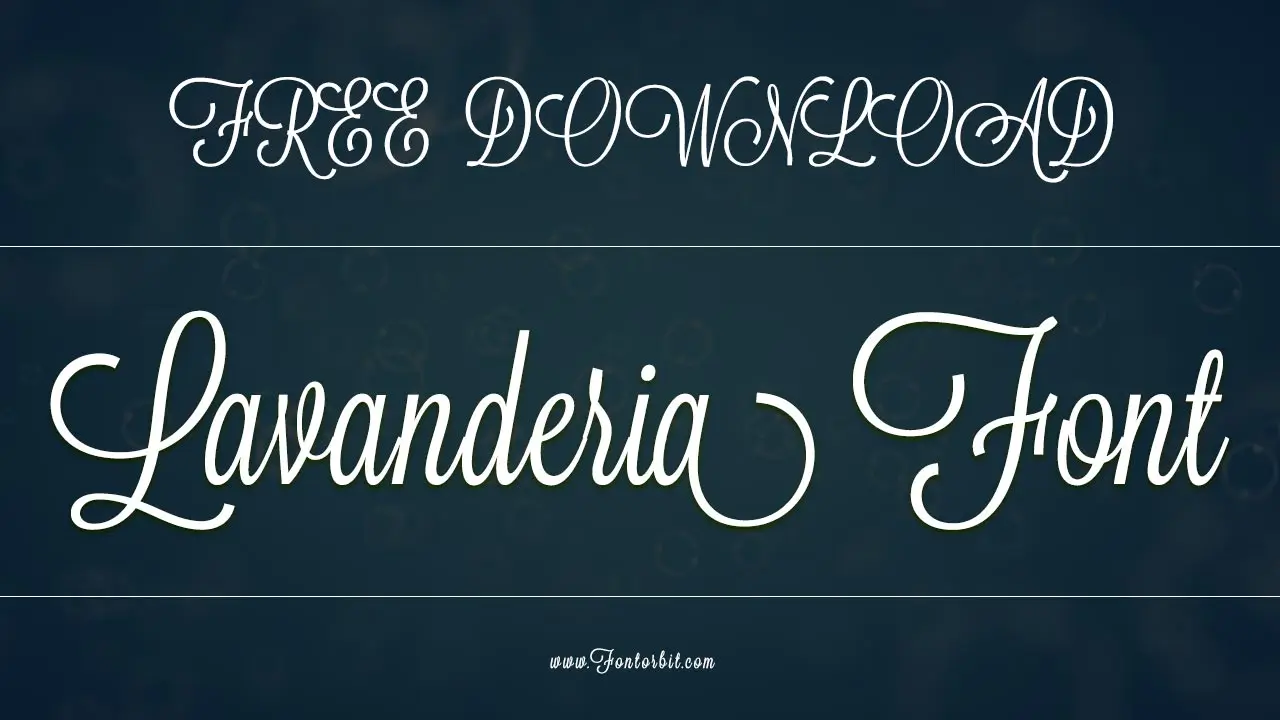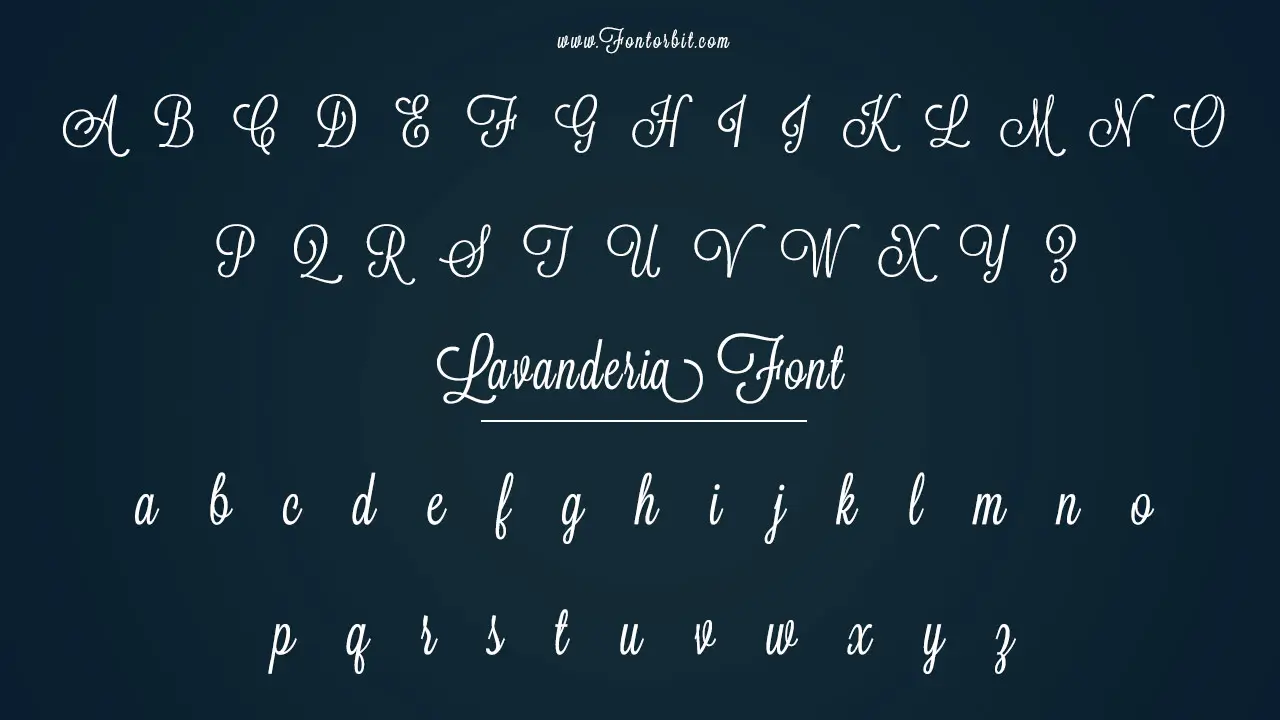
Designed by James T. Edmondson, Lavanderia Font is a beautiful script typeface inspired by San Francisco’s laundromat signs. With its smooth, flowing style, this font is perfect for creating elegant branding, eye-catching posters, and sophisticated invitations. Whether you’re working on a logo, website, or social media design, Lavanderia adds a touch of class to any design project.
Lavanderia Font Family Styles
The Lavanderia font family consists of three distinctive styles:
- Lavanderia Delicate – A light and elegant version for soft, refined designs.
- Lavanderia Regular – The standard weight, offering a perfect balance of readability and style.
- Lavanderia Sturdy – A bold version with strong strokes for high-impact visuals.
Each variation includes ligatures, special characters, and support for Latin and Greek alphabets, making it an excellent choice for diverse design projects.
Why Choose Lavanderia Font?
Lavanderia is a versatile script font that blends sophistication with readability. Ideal for branding, posters, and social media, this calligraphy font is a go-to for designers who want a mix of elegance and modern appeal.
Perfect for:
- Logos & Branding – Stylish and timeless for business identity.
- Posters & Flyers – Adds a creative, hand-lettered touch.
- Social Media Graphics – Enhances posts with a professional yet artistic feel.
- Website & Blog Design – Makes headlines and text stand out beautifully.
- Print & Merchandise – Ideal for t-shirts, labels, and product packaging.
1.Why Is Lavanderia Great For Branding?
Lavanderia’s smooth script style adds a stylish and sophisticated feel, making it perfect for logos, product packaging, and social media visuals.
3.Does Lavanderia Support Multiple Languages?
Yes, Lavanderia includes Latin, Greek, and special characters, making it versatile for international projects.
4..Is Lavanderia Suitable For Print Designs?
Absolutely! Lavanderia is great for posters, business cards, invitations, and apparel.
7.What Fonts Pair Well With Lavanderia?
Pair it with Montserrat, Lato, Raleway, or Playfair Display for a balanced design.